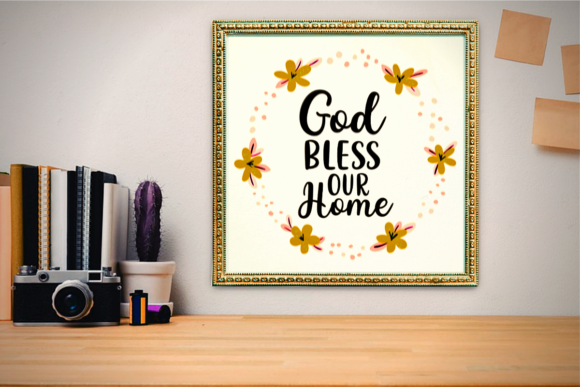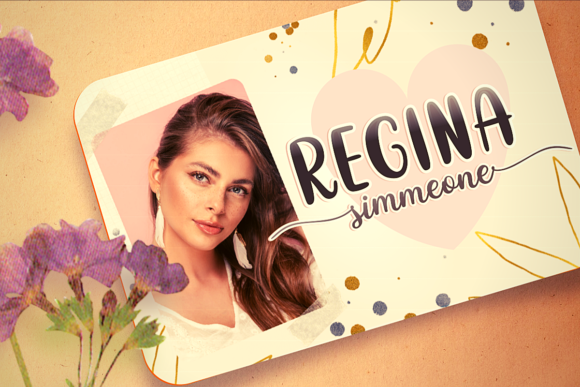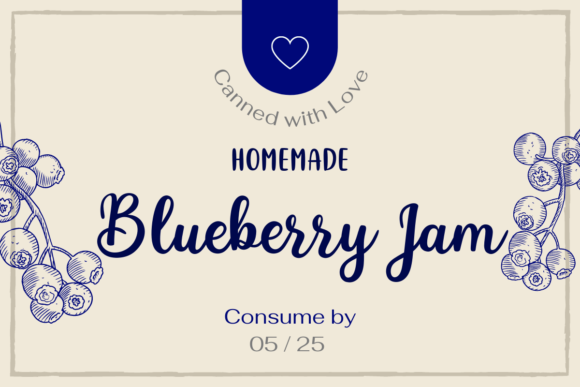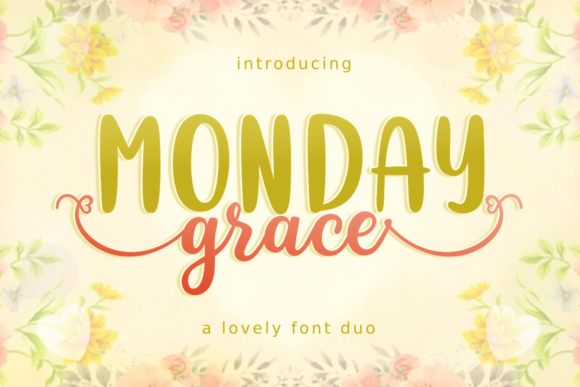
Introduction to Monday Grace Font
Monday Grace is a lovely duo script font.
👤 Author Deedeetype
Jolly, organic and natural, this font will look gorgeous on a variety of designs, both formal and informal Fall in love with its incredibly versatile style and use it to create spectacular designs.